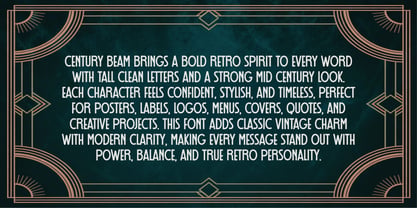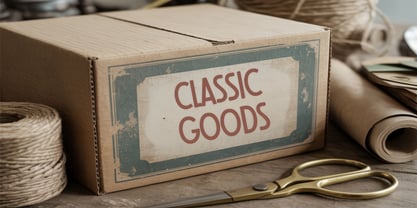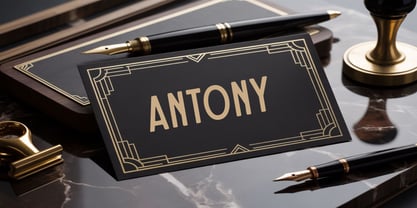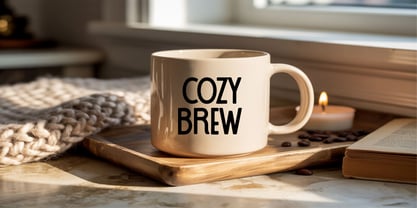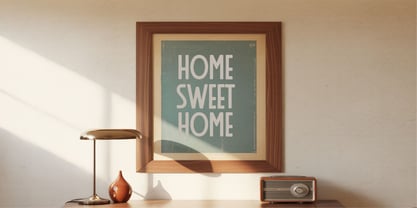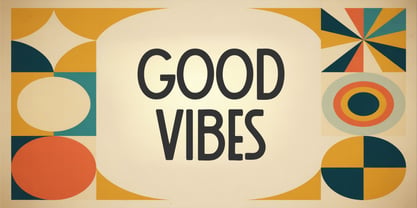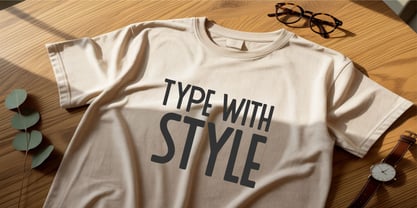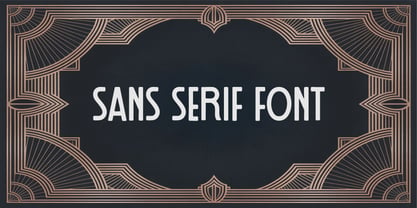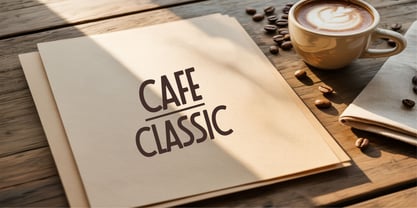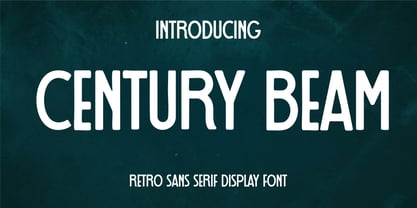
Century Beam
by Tonis Art Studio
The Century Beam Font Family was designed by Tony Balios and published by Tonis Art Studio. Century Beam contains 1 styles. More about this family
Classic Deco Sans is a refined sans serif typeface that blends clean modern lines with subtle Art Deco character. Designed with balanced proportions and gently elongated shapes, it offers a vintage charm while staying crisp and contemporary. Its smooth curves and simple geometry make it ideal for branding, packaging, posters, editorial layouts, café menus, lifestyle visuals, and stylish display typography. The typeface carries a warm retro personality without feeling heavy, making it perfect for projects that need clarity with a distinctive visual voice. Whether used for logos, signage, home décor prints, or digital graphics, Classic Deco Sans delivers strong readability and a timeless aesthetic. It works beautifully across both print and digital environments, bringing a touch of elegance and sophistication to every design. Classic Deco Sans is the perfect choice for designers seeking a clean yet character-rich typeface that bridges classic inspiration with modern versatility.
Designers: Tony Balios
Foundry: Tonis Art Studio